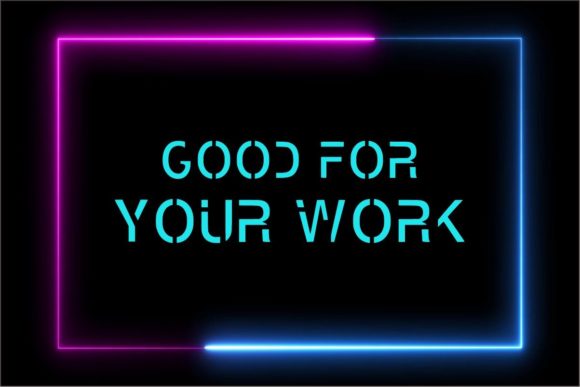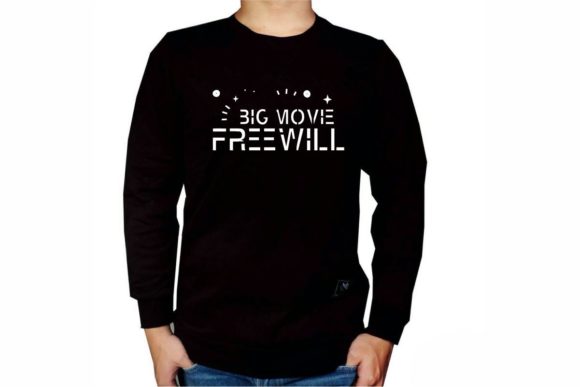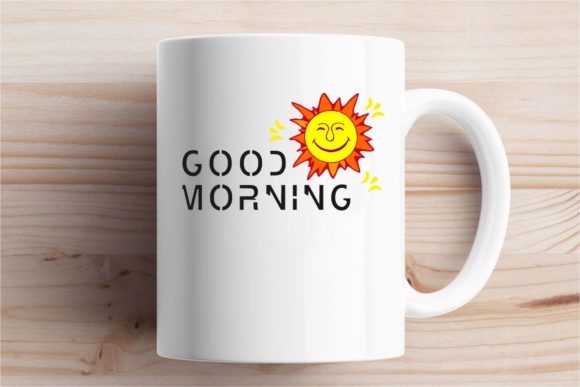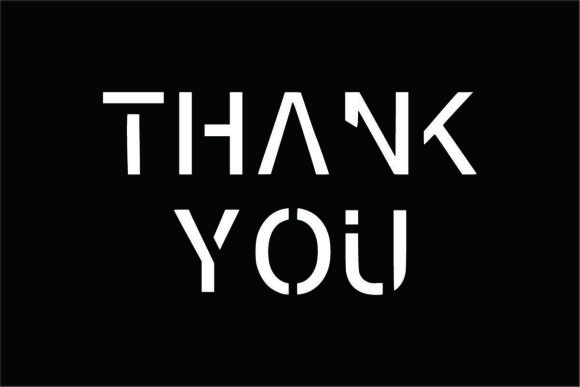
Introducing Freewill Font: Elevate Your Designs with Elegance and Sophistication
In the world of typography, fonts play a crucial role in conveying the tone and personality of a design. For designers and crafters seeking a typeface that exudes elegance and sophistication, look no further than Freewill Font. This casual look font boasts an undeniably elegant feel, making it an excellent choice for a wide range of design projects.
The Unique Charm of Freewill Font
Freewill Font is characterized by its neat arrangement of letters, which gives it a beautiful and unique appearance. The typeface features a perfect blend of casual and elegant elements, making it versatile enough to be used in both formal and informal designs. Whether you’re working on a wedding invitation, a fashion brand logo, or a social media post, Freewill Font is sure to make a lasting impression.
Key Features of Freewill Font
- Elegant Feel: Freewill Font has an undeniably elegant feel that adds a touch of sophistication to any design.
- Casual Look: Despite its elegance, Freewill Font has a casual look that makes it perfect for informal designs and projects.
- Unique Letter Arrangement: The typeface features a neat arrangement of letters that gives it a beautiful and unique appearance.
- Versatility: Freewill Font can be used in a wide range of design projects, from formal to informal, and from print to digital.
Design Applications for Freewill Font
Freewill Font is an incredibly versatile typeface that can be used in various design applications, including:
- Wedding Invitations: Add a touch of elegance to your wedding invitations with Freewill Font.
- Fashion Branding: Use Freewill Font to create a sophisticated and stylish logo for your fashion brand.
- Social Media Posts: Elevate your social media posts with the elegant and casual look of Freewill Font.
- Packaging Design: Use Freewill Font to create eye-catching packaging designs that stand out on store shelves.
Why Choose Freewill Font?
With so many fonts available, why choose Freewill Font? Here are a few reasons:
- Unique Style: Freewill Font has a unique style that sets it apart from other typefaces.
- Ease of Use: The font is easy to read and use, making it perfect for designers of all skill levels.
- High-Quality Design: Freewill Font is designed with high-quality craftsmanship, ensuring that it looks great in any design project.
In conclusion, Freewill Font is an excellent choice for designers and crafters seeking a typeface that exudes elegance and sophistication. Its unique charm, versatility, and high-quality design make it perfect for a wide range of design projects. Whether you’re working on a formal or informal design, Freewill Font is sure to elevate your project and make a lasting impression.